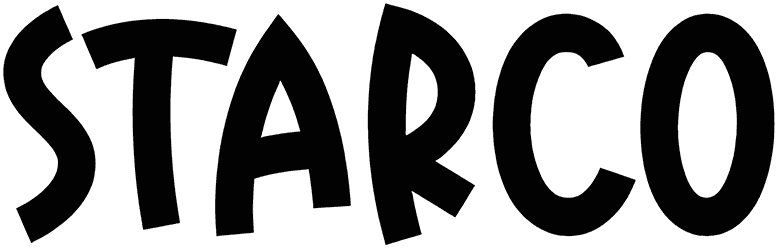
Starco Font
A playful and modern letterform is what you need to give a ravishing vibe to your creative and cheerful project. This cartoon font, with its minimal form, provides you with such an item. The Starco font doesn’t support lowercase letters, but it would serve as a cute face for the words of your designs, like a baby shower invitation card.